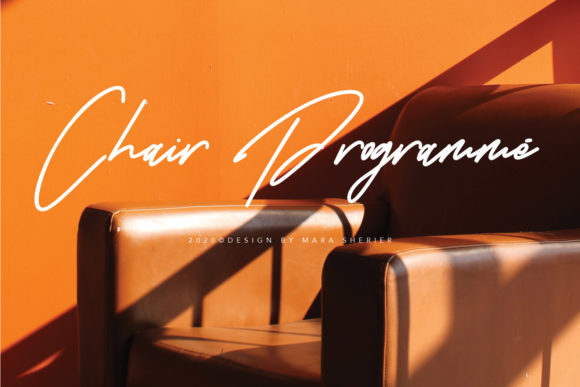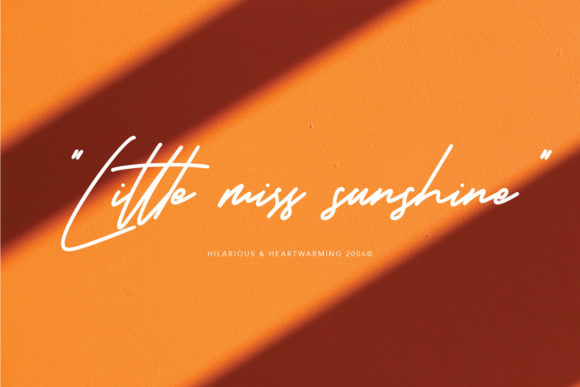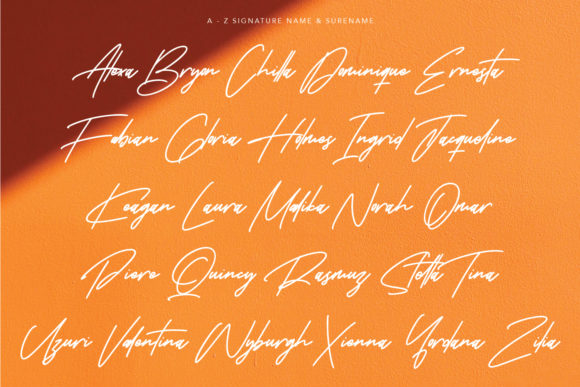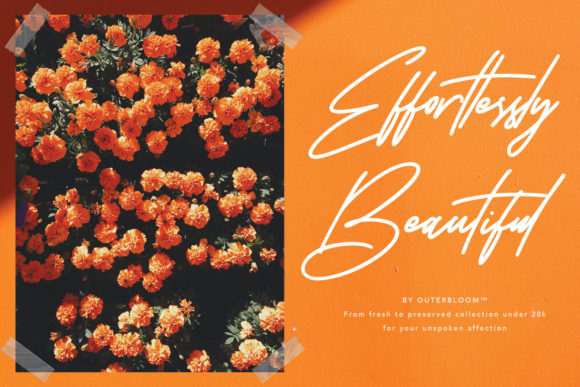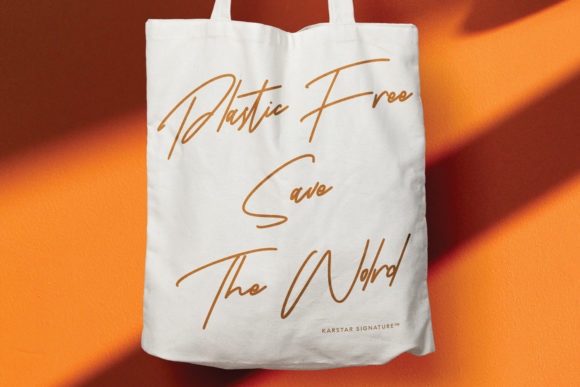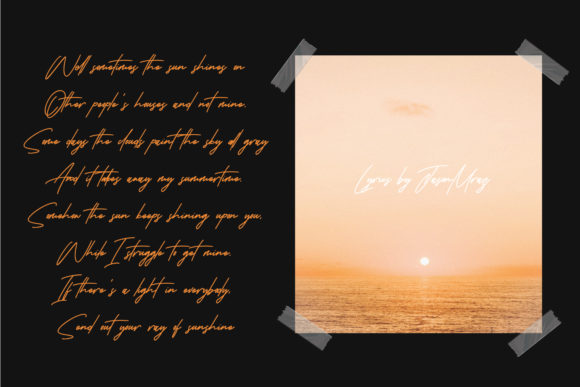
Introduction to Karstar Signature Font
Karstar Signature is an incredibly distinct, delicate and timeless handwritten font.
Key Features of Karstar Signature Font
Why Choose Karstar Signature Font?